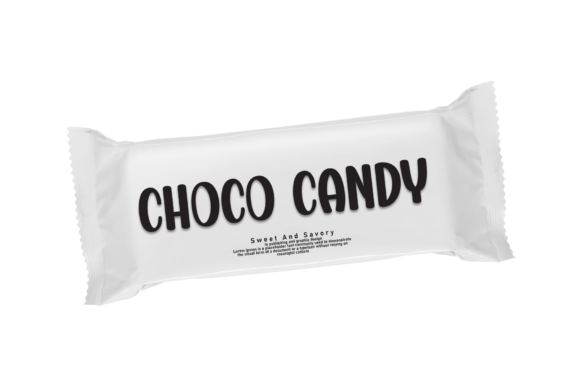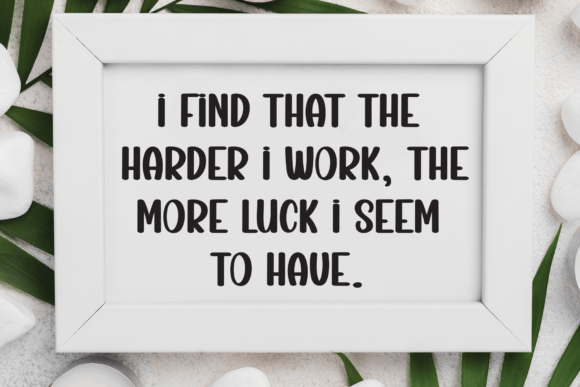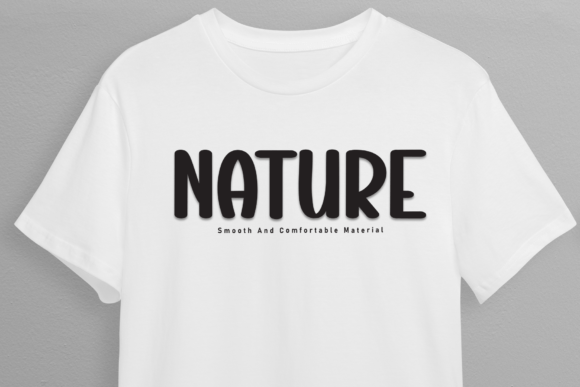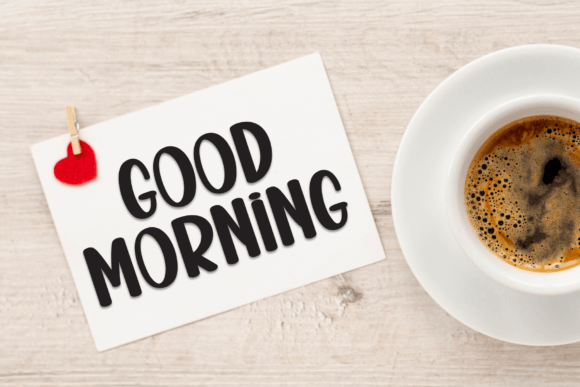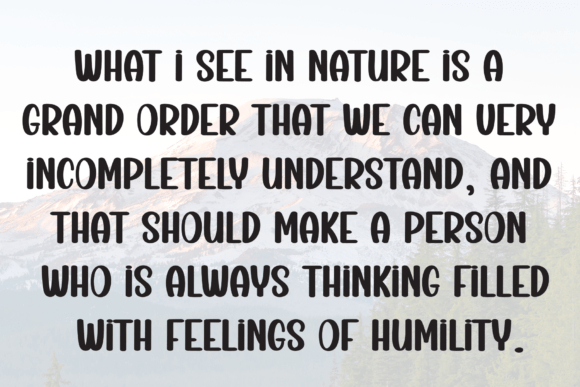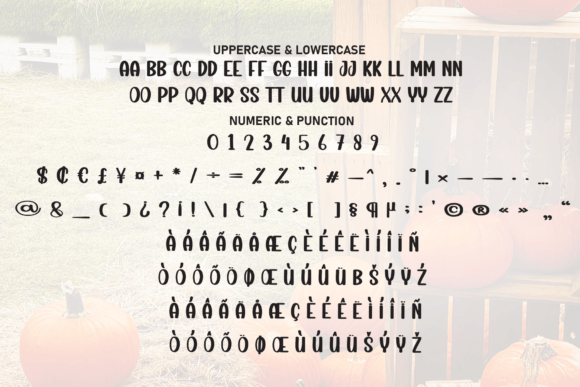
Introduction to Pumpkin Garden Font
Imagine you’re brainstorming ideas for a client’s new fall-themed campaign, and suddenly, you’re hit with the perfect concept: a vibrant, playful design that screams autumn fun. You envision bold, colorful graphics and eye-catching headlines that leap off the page. That’s where the Pumpkin Garden Font comes in – a bold, playful display font that adds a lively touch to any text.
As a designer, you’re always on the lookout for high-quality design resources that can elevate your creative projects. The Pumpkin Garden Font is a valuable addition to your toolkit, perfect for projects that require a fun, whimsical feel. With its transparent background and free download option, you can incorporate this stylish font into your designs without any hassle.
Whether you’re working on a seasonal campaign or a personal project, the Pumpkin Garden Font is sure to bring a smile to your client’s face. Its playful, round style makes it perfect for eye-catching headlines and creative projects, and its high-quality design ensures that it will look great on any background.
Key Features of Pumpkin Garden Font
- Unique Hand-Drawn Design: The Pumpkin Garden Font features a hand-drawn design with a playful and whimsical touch, making it perfect for creative projects.
Honest Review: Pumpkin Garden Font
I recently came across the Pumpkin Garden Font, a beautiful design resource that caught my attention. As a designer, I’m always on the lookout for high-quality fonts to elevate my creative projects. The Pumpkin Garden Font does not disappoint.
- ✨ High-quality design: The font is clean, elegant, and perfect for a variety of creative projects.
- ⚠️ Limited font styles: The Pumpkin Garden Font comes in a limited number of styles, which might not be suitable for more complex design projects.
- ⚠️ Not suitable for bold headings: The font is better suited for body text and smaller headings, as it can get lost in bold, larger headings.
Overall, I’m impressed with the Pumpkin Garden Font. While it has some limitations, its high-quality design and free download make it a valuable resource for designers working on creative projects. I’d definitely recommend it for any design project that requires a clean and elegant font.
Pumpkin Garden Font
The Pumpkin Garden Font is a high-quality design resource perfect for creative projects that need a touch of whimsy and elegance. With its transparent background and free download option, you can easily incorporate it into your designs.
Tips for Getting the Most Out of Pumpkin Garden Font
To get the most out of the Pumpkin Garden Font, experiment with different font sizes, colors, and combinations to create unique and visually appealing designs.
The Pumpkin Garden Font is perfect for:
– Fall-themed designs and projects
– Wedding invitations and decorations
– Social media graphics and posts
– Educational materials and presentations